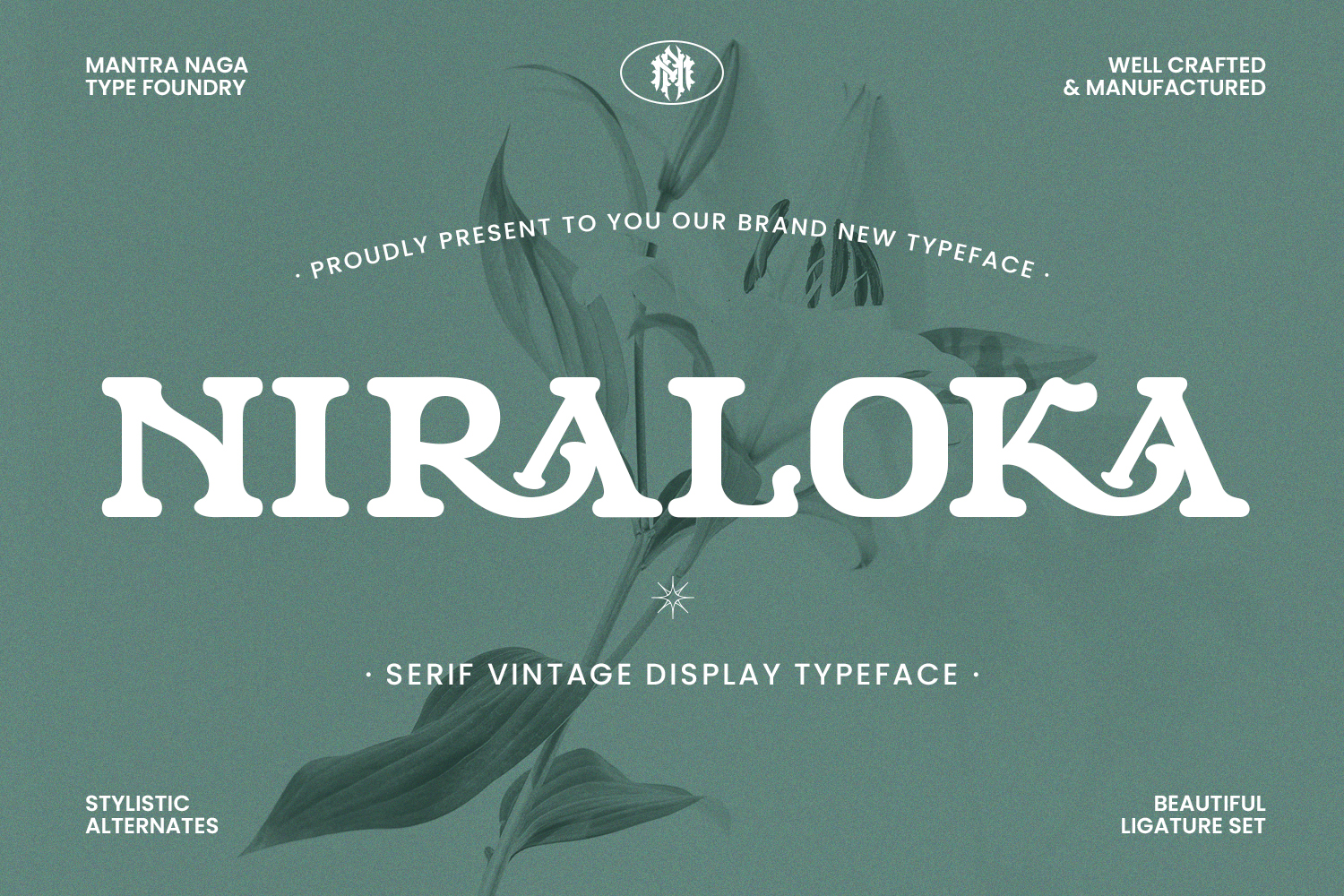
Niraloka Font
Designed by Mantra Naga Studio
About Niraloka
Niraloka font is the perfect embodiment of a display serif style with a distinct vintage touch. With 386 glyphs consisting of capital letters, this font conveys the elegance of a serif in a tone reminiscent of a bygone era. OpenType features that include alternative characters and ligatures provide flexibility for creative and unique design expressions. Support for 84 international languages makes Niraloka a highly inclusive choice for global design projects, combining the visual charm of a bygone era with modern demands.